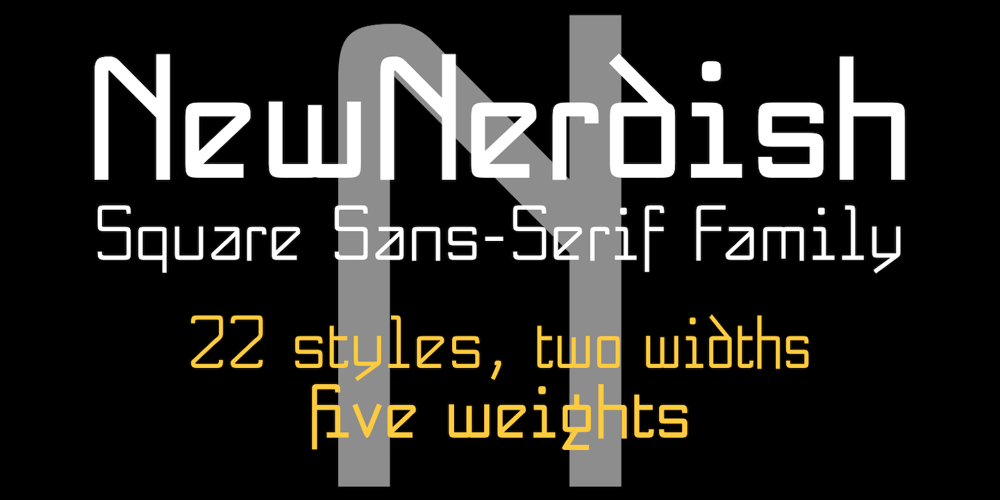
NewNerdish Font Family was designed by Robert Schenk and published by Ingrimayne Type. NewNerdish contains 22 styles and family package options. A sans-serif face in which the circular elements have become almost square, NewNerdish resembles a number of typefaces which have become associated with a modernistic, computer look. There is little or no variation in the weight of horizontals, diagonals, and verticals. It comes in two widths each with five weights and each weight has an oblique version, which has the same letter shapes as the upright version. The ShadowedInside style is designed to be used in a layer with the Shadowed style.